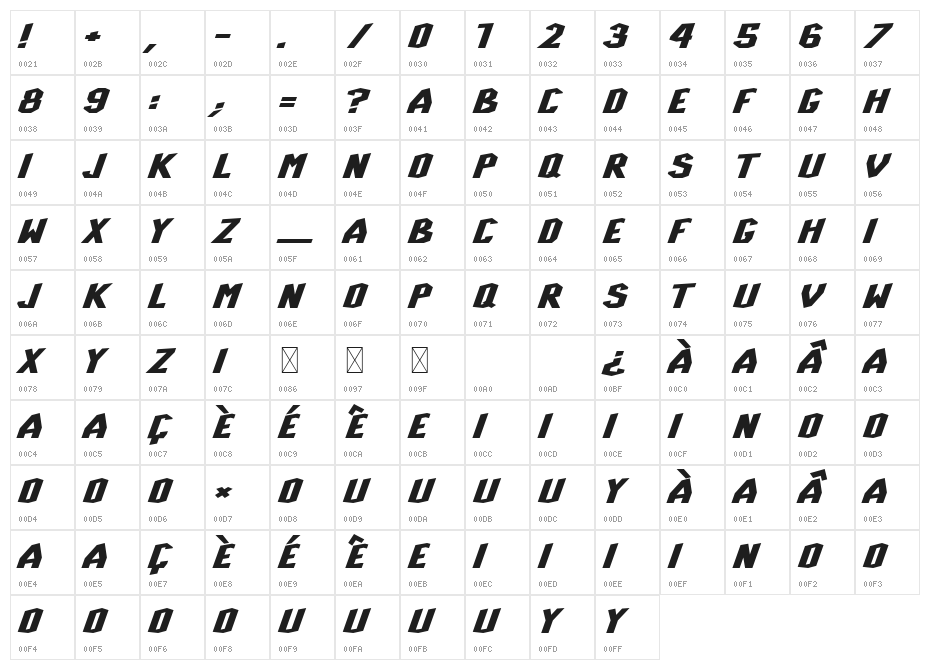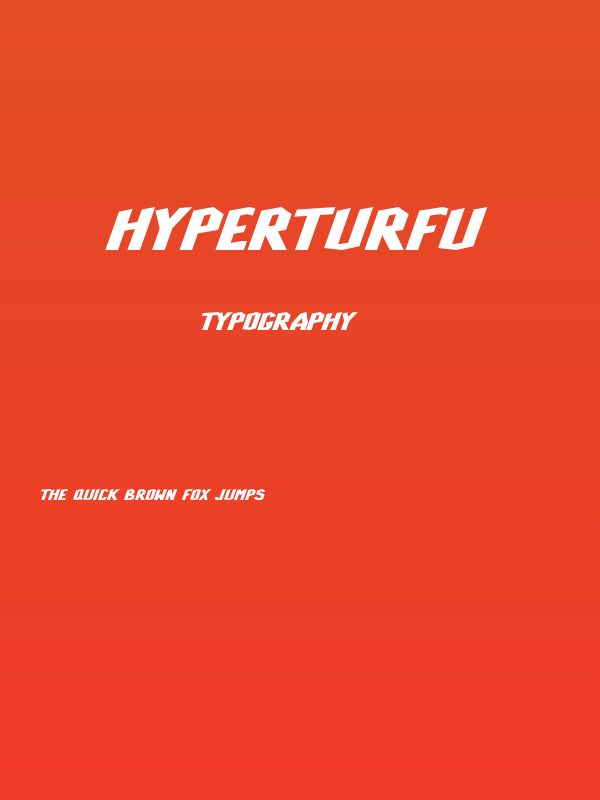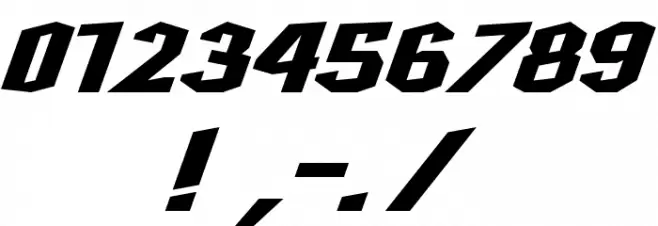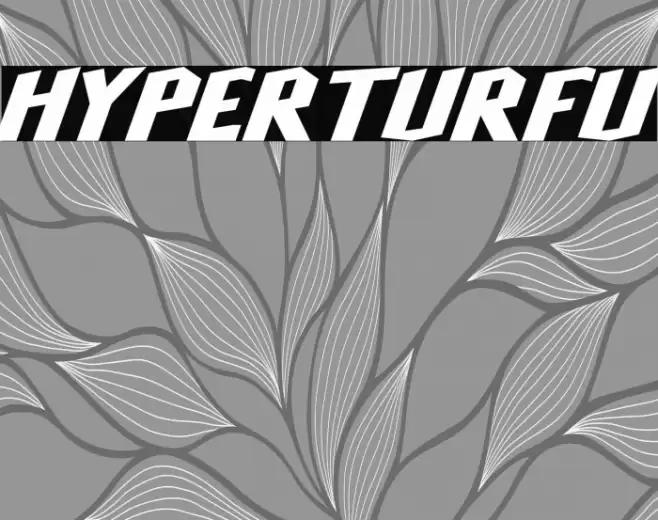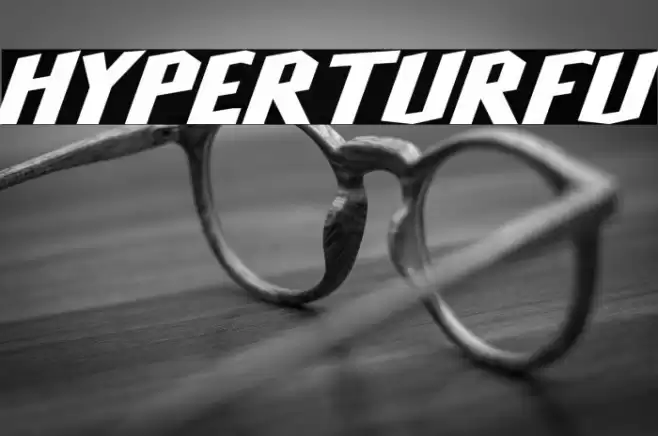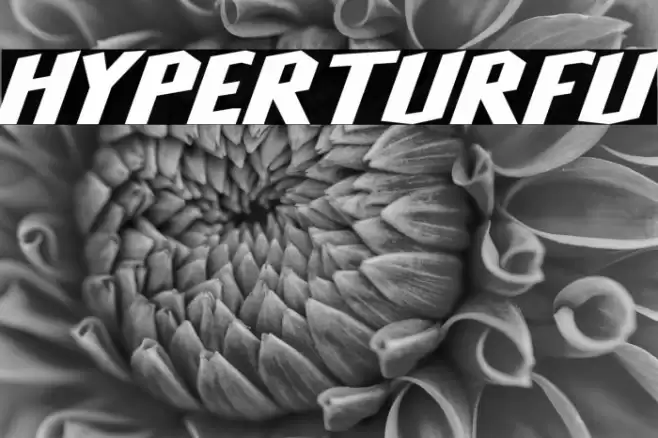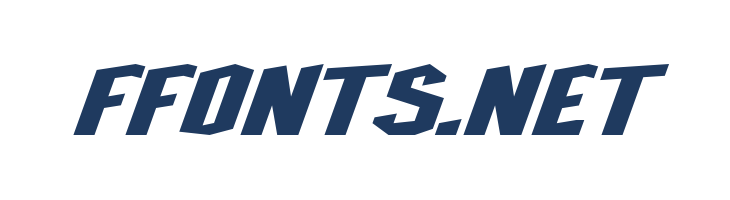
HyperTurfu Font
HyperTurfu Description
This font features a bold, angular design with a futuristic and dynamic appearance. The characters are sharply cut with a distinct slant, giving a sense of motion and energy. The uppercase and lowercase letters maintain a consistent style, with the uppercase being particularly striking and impactful. Numbers and special characters follow the same angular and bold design, ensuring uniformity across all elements. The font's unique style makes it stand out, ideal for projects that require a modern and edgy look.
| Proposed Projects | Ideal for branding, sports team logos, video game titles, and futuristic-themed designs. |